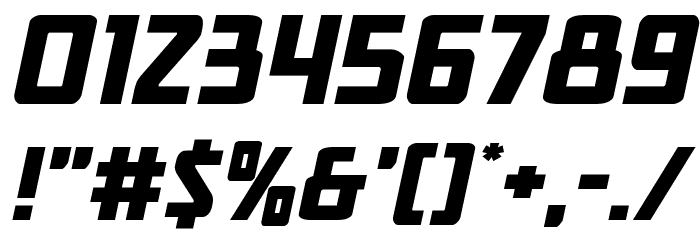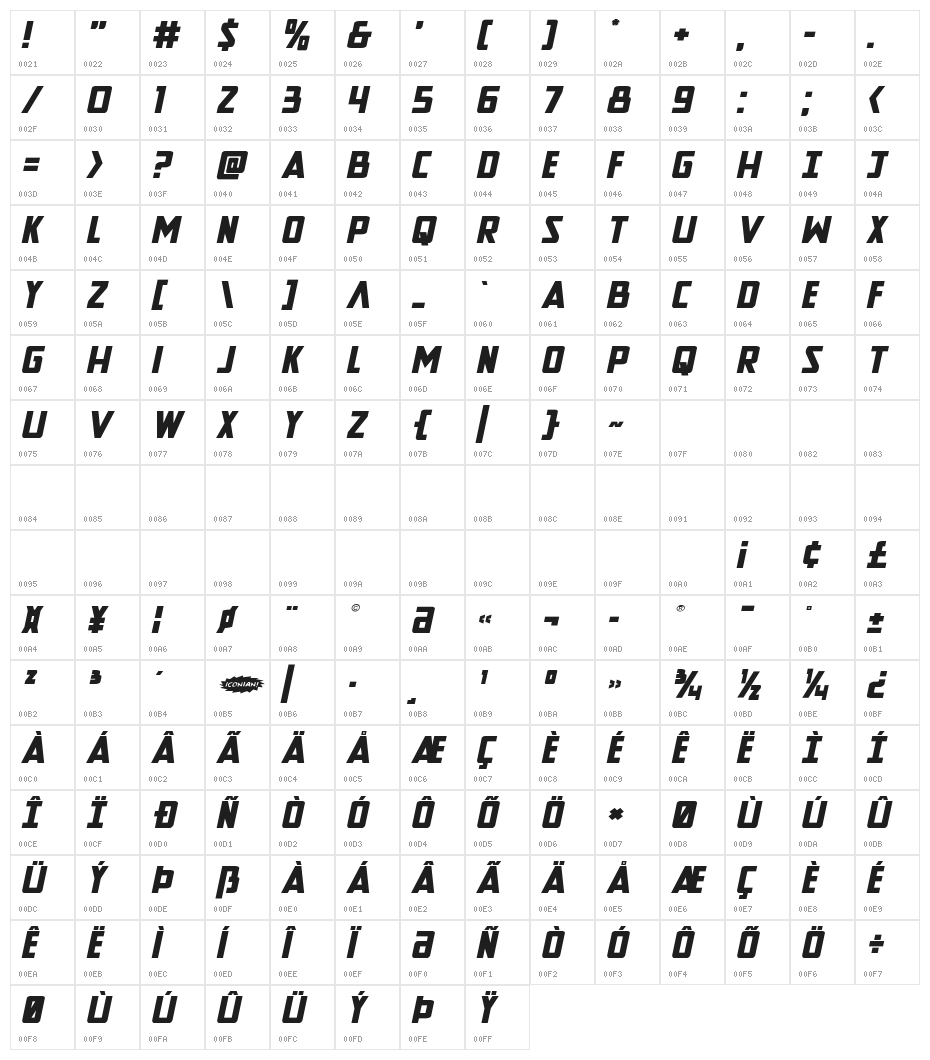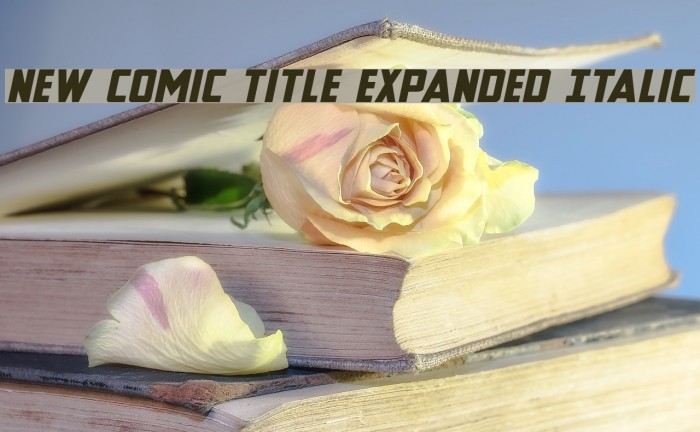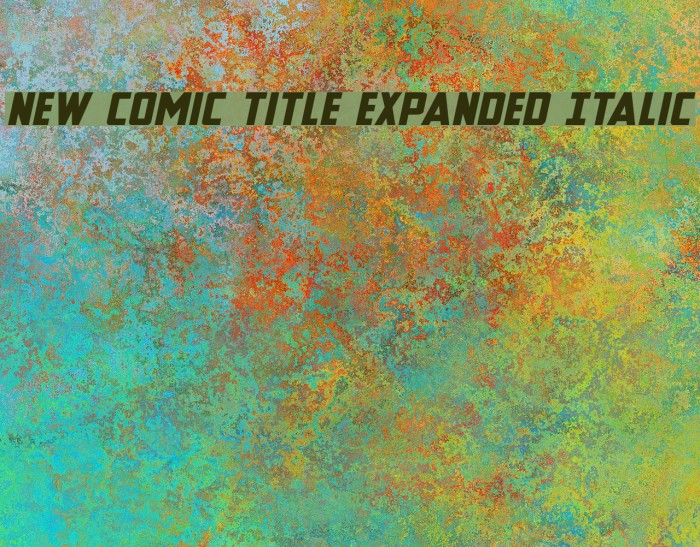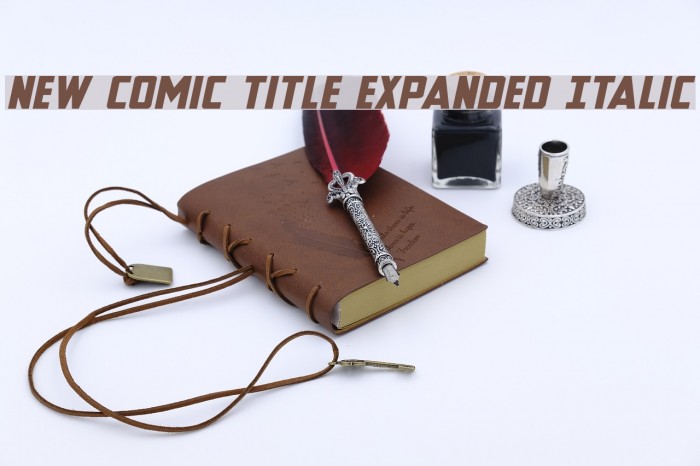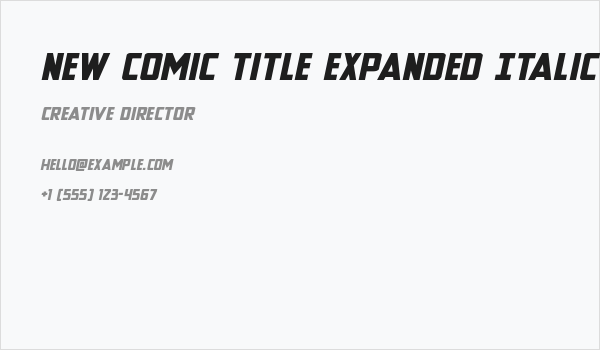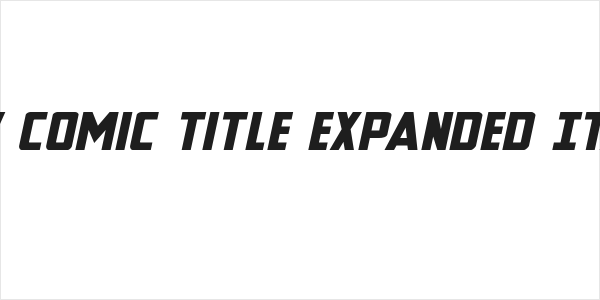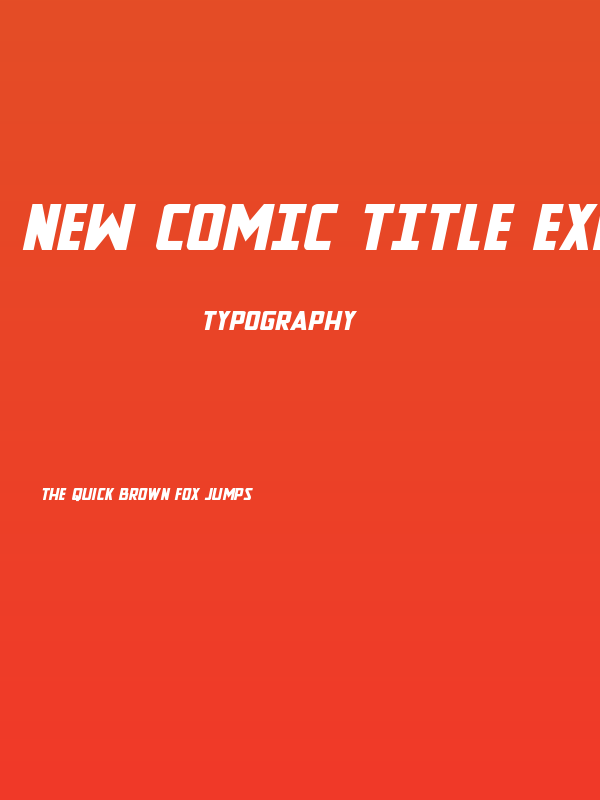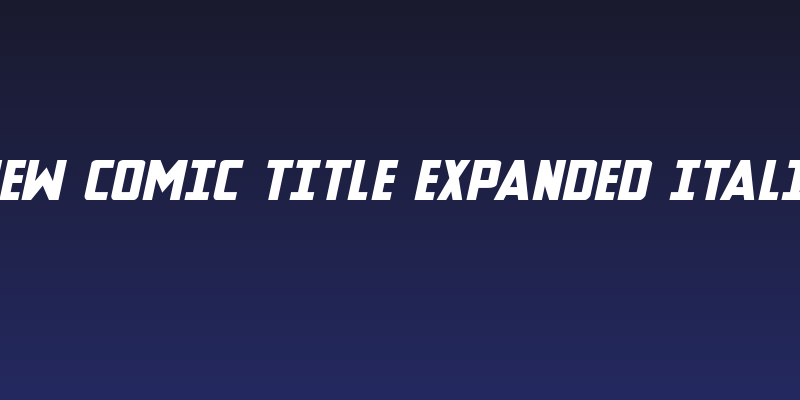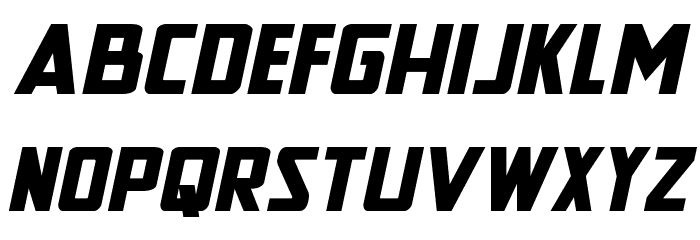
New Comic Title Expanded Italic Font
New Comic Title Expanded Italic Description
This font features a bold and dynamic style with an italic slant, giving it a sense of movement and energy. The characters are expanded, providing a wide and impactful appearance. Each letter is crafted with sharp angles and clean lines, contributing to a modern and assertive look. The numerals and special characters maintain the same boldness and angular design, ensuring consistency throughout. This font is ideal for creating attention-grabbing headlines or titles, where a strong visual presence is required.
| Proposed Projects | Perfect for comic book titles, posters, advertisements, and any project needing a bold and energetic typeface. |